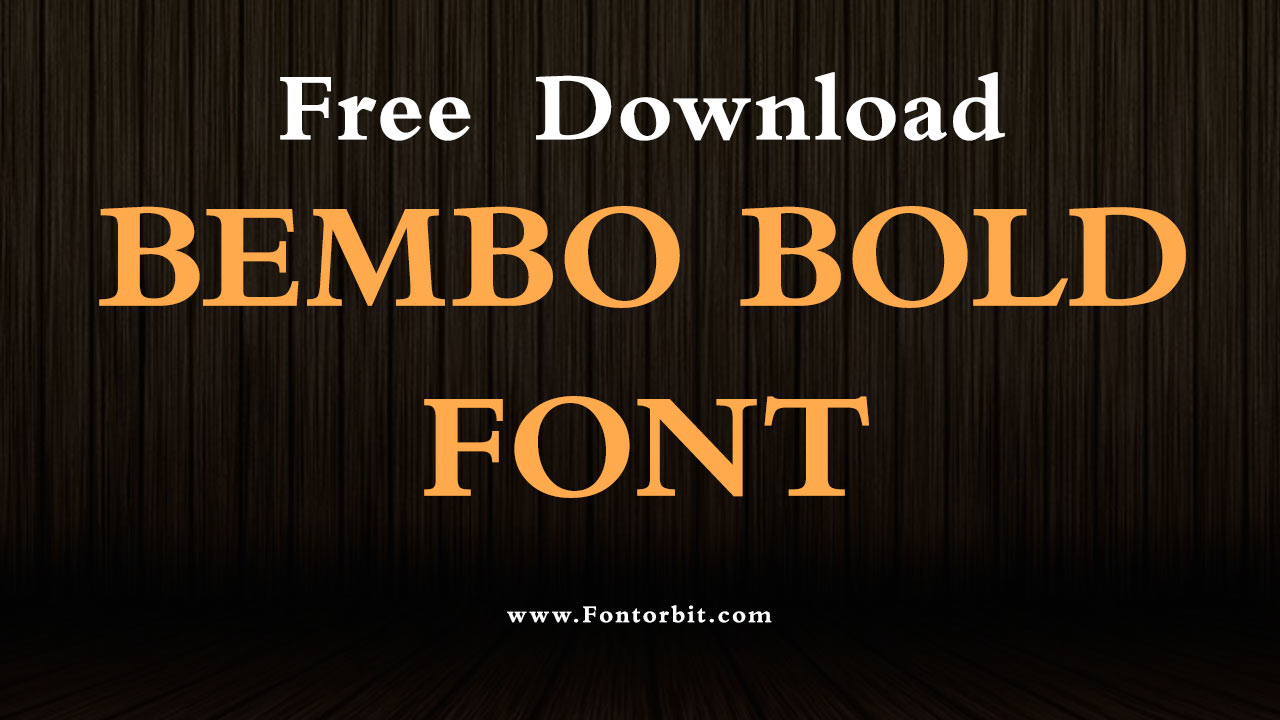
Bembo Bold is a classic serif typeface designed by Monotype Imaging. Originally created in the late 15th century by Francesco Griffo, this font has undergone various adaptations over the centuries.
The modern version of Bembo was published in 1929, making it a timeless choice in the world of typography. As a member of the Bembo font family, I widely appreciate its elegance and readability.
Bembo Bold Family Includes
The Bembo Bold font stands out for its traditional serif style and legibility, making it an ideal choice for both print and digital media. The Bembo family consists of several styles, including:
- Bebo Regular
- Bembo Bold
Notable Uses of Bembo Bold
Bembo Bold is frequently used on various occasions, including:
- Books and Literature
- Corporate Branding
- Academic Publishing
- Invitations and Formal Events
You can use Bembo Bold in various settings, such as:
- Print Media
- Digital Content
Bembo Bold is a versatile and elegant typeface that has stood the test of time. Whether you are designing a book cover, a formal invitation, or a corporate presentation, Bembo Bold provides a classic touch that enhances the visual appeal of your text.